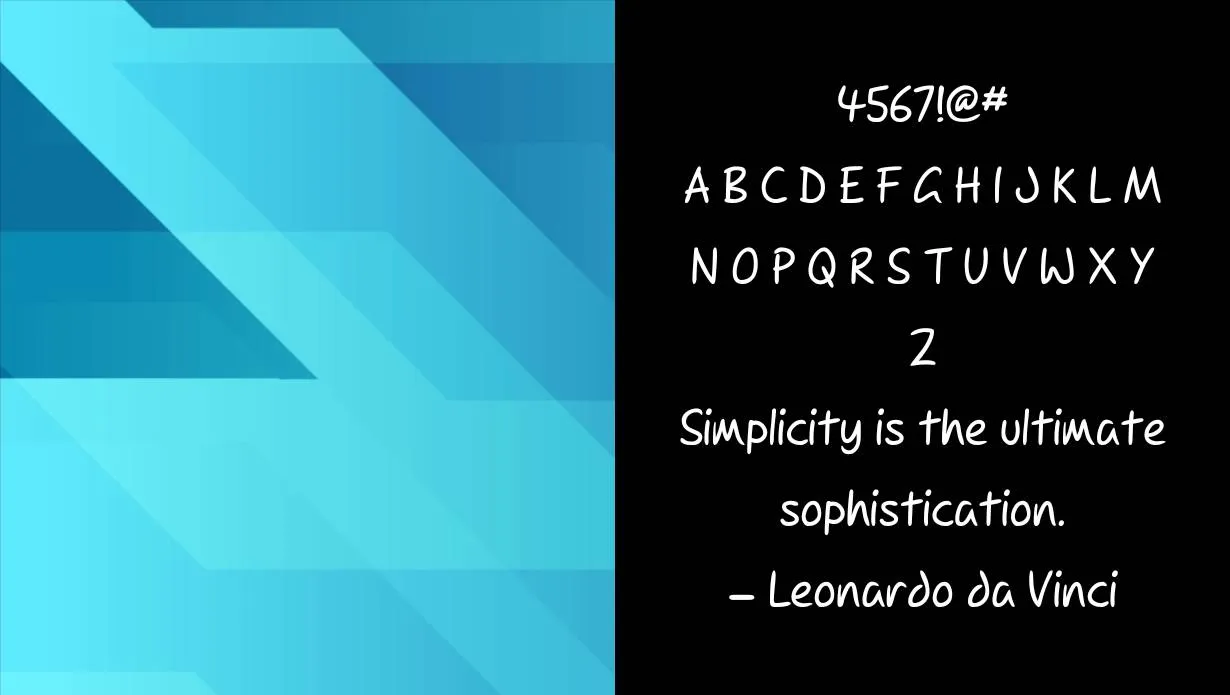
Dupree Font is a versatile and modern typeface that combines simplicity with sophistication. With clean lines and a contemporary design, Dupree Font is suitable for a wide range of applications.
Whether used for branding, editorial layouts, or digital interfaces, Dupree Font offers a sleek and polished typographic solution. Its readability and adaptability make it a reliable choice for projects that demand a modern and minimalist aesthetic.